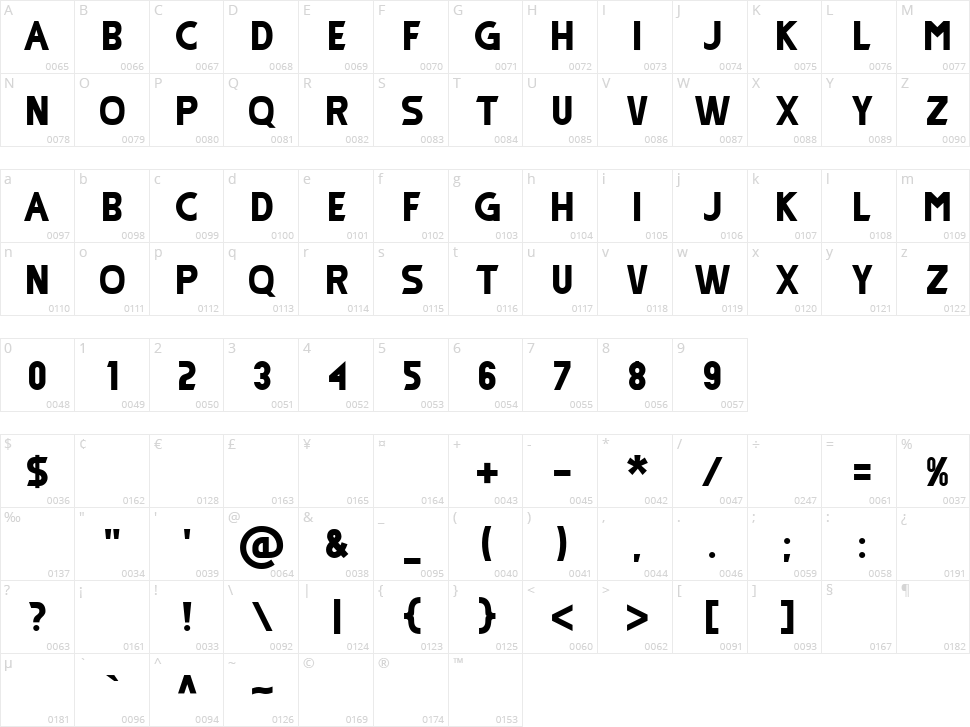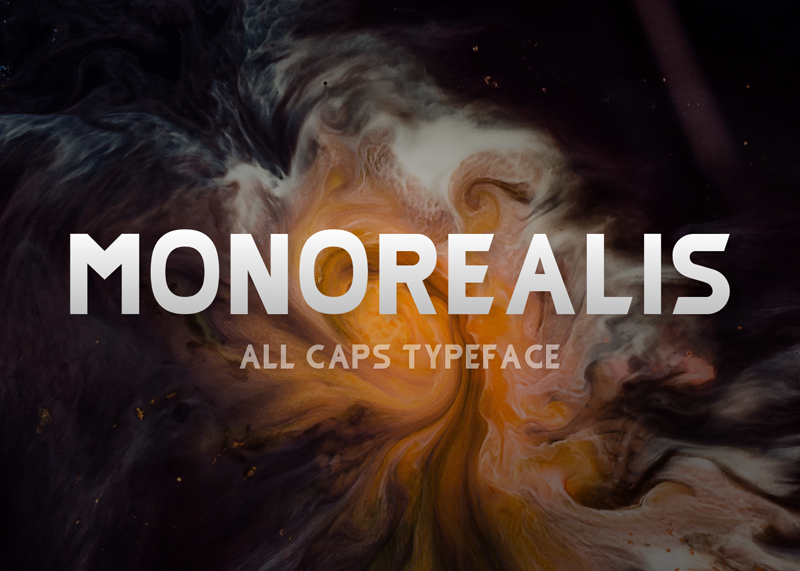
Monorealis
Monorealis is a simple and neat sans serif font. Modern and futuristic font shapes will suit your various design needs. Add it to your project and let imagination guide you.